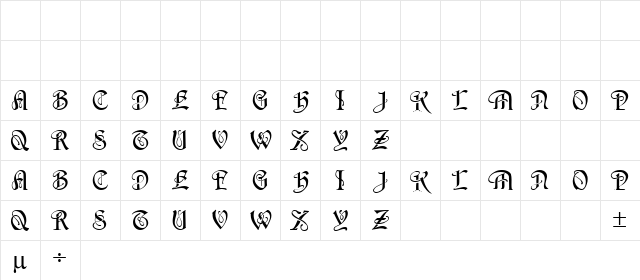
Horst Regular
Design Context for Horst Typeface
Horst is a composed and adaptable typeface that performs quietly and consistently across a wide range of design contexts.